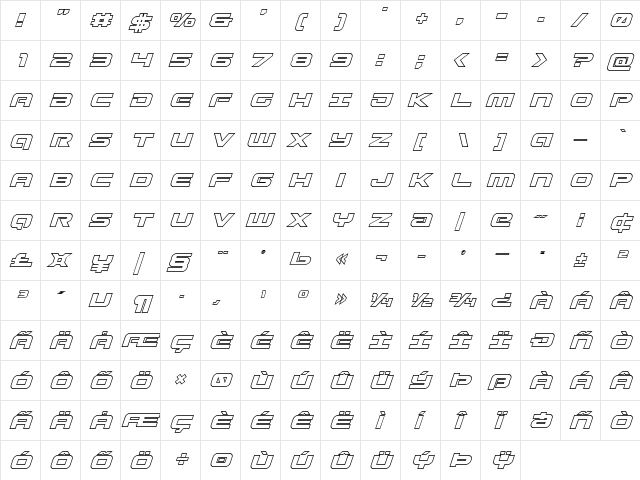
Gunship Outline Italic Outline Italic
Design Context for Gunship Outline Italic Typeface
Gunship Outline Italic brings ornamental detail and strong personality to headlines and identities, where visual impact matters more than quiet functionality. The slanted form adds forward momentum and visual energy.
Font Pairing: Pair with a clean neutral sans-serif for body copy to let Gunship Outline Italic's character lead without overwhelming the composition.
Pro Tip: Use Gunship Outline Italic exclusively at display sizes — it was designed to be seen, not read at length. Let a neutral companion handle body copy.